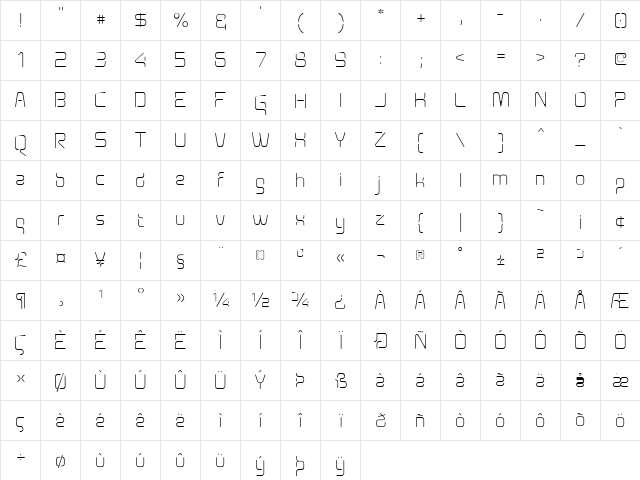
Aunchanted Thin Regular
Design Context for Aunchanted Thin Typeface
Aunchanted Thin takes a measured approach to typography — its balanced proportions and neutral character make it a reliable workhorse for both digital and print work. Its slender proportions lend an understated elegance to any composition.